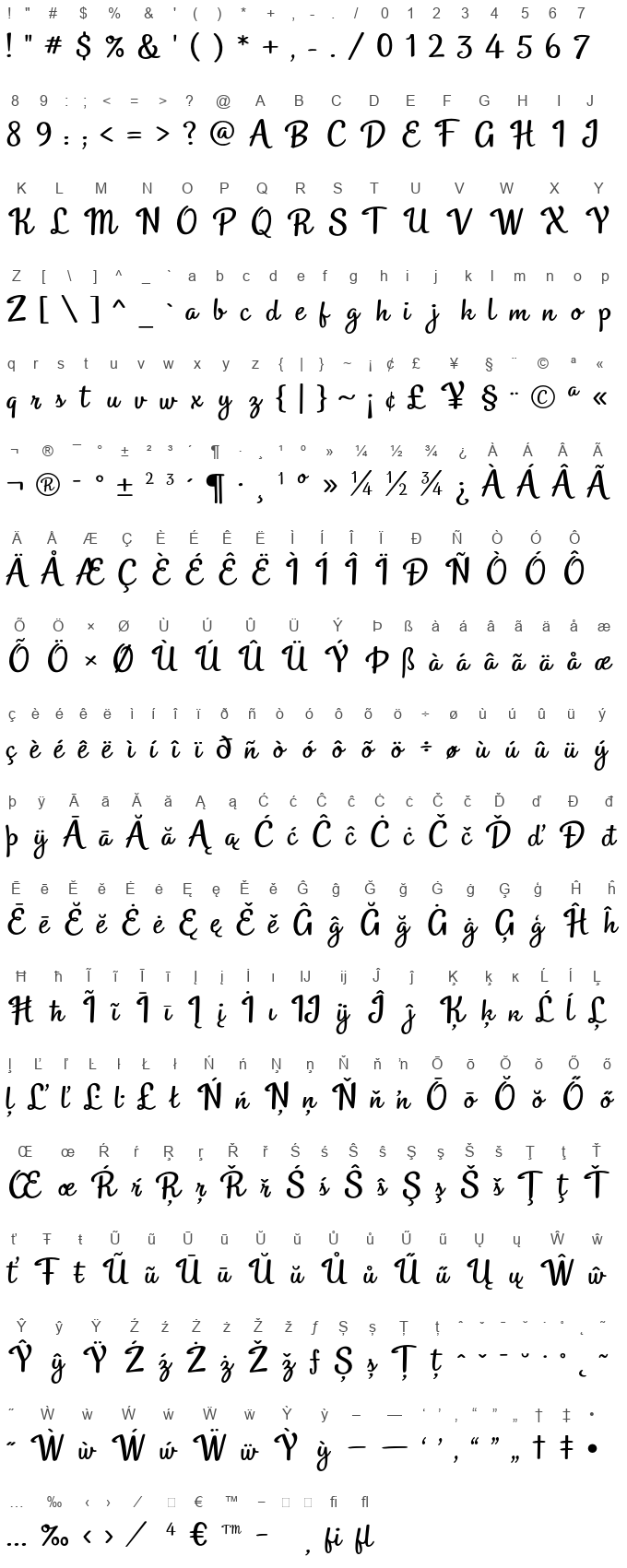
LT Beverage is the life of the font party, showing up fashionably late with a pineapple hat and a coconut bra! Its letters are like little party animals, dancing on the page and leaving a trail of confetti behind them.
This font is so bubbly, it's practically carbonated! Each letter is like a fizzy drink, bursting with energy and flavor. It's the kind of font that makes you want to raise a toast and say, "Cheers to creativity!"
With LT Beverage, every word is a celebration. It's perfect for adding a splash of fun to your designs, whether you're creating a menu for a tropical bar or a birthday invitation for your favorite party animal. So grab a cocktail umbrella and let LT Beverage bring the party to your next project!
LT Beverage